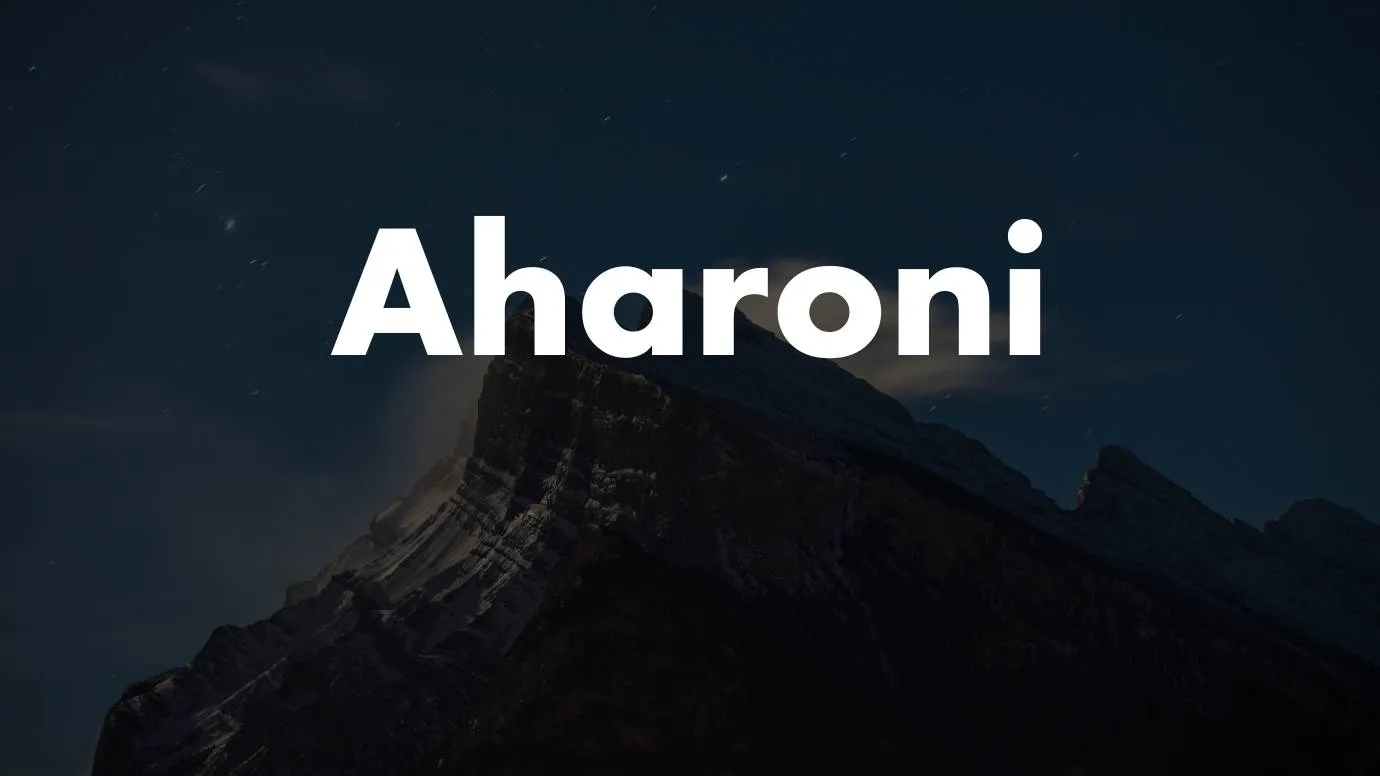
Aharoni Font Family is an amazing font with bold characters. This font family is a part of the Sans-Serif font family. This font has a family of its own it includes 22 styles and five weights including Regular, Bold, Medium, Thin, and heavy.
This typeface is one of the most famous typefaces that are used inside Microsoft Products such as many Microsoft Windows versions using this typeface as their priority.
Aharoni Font